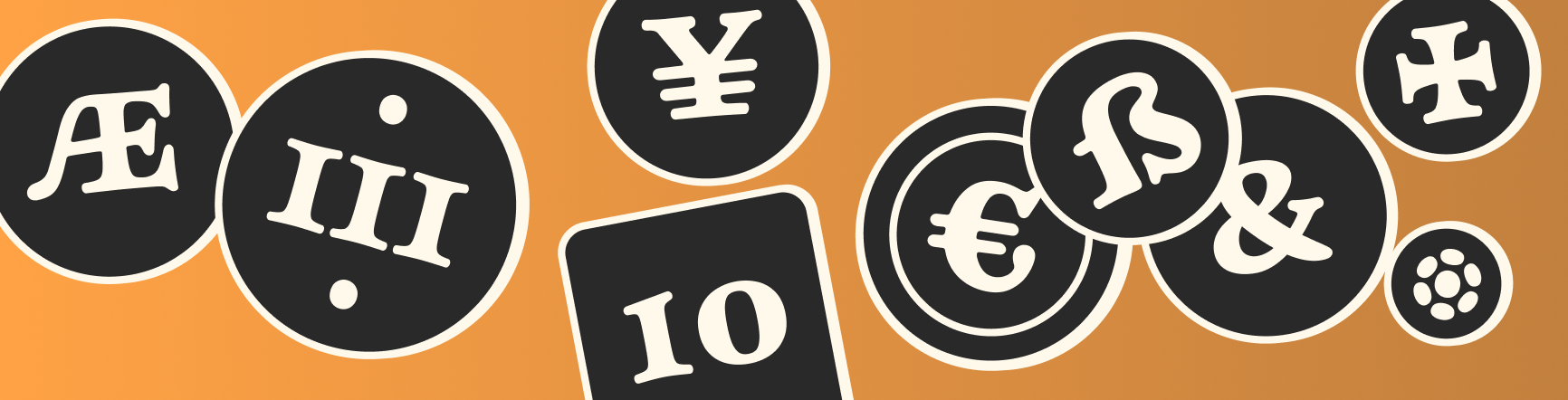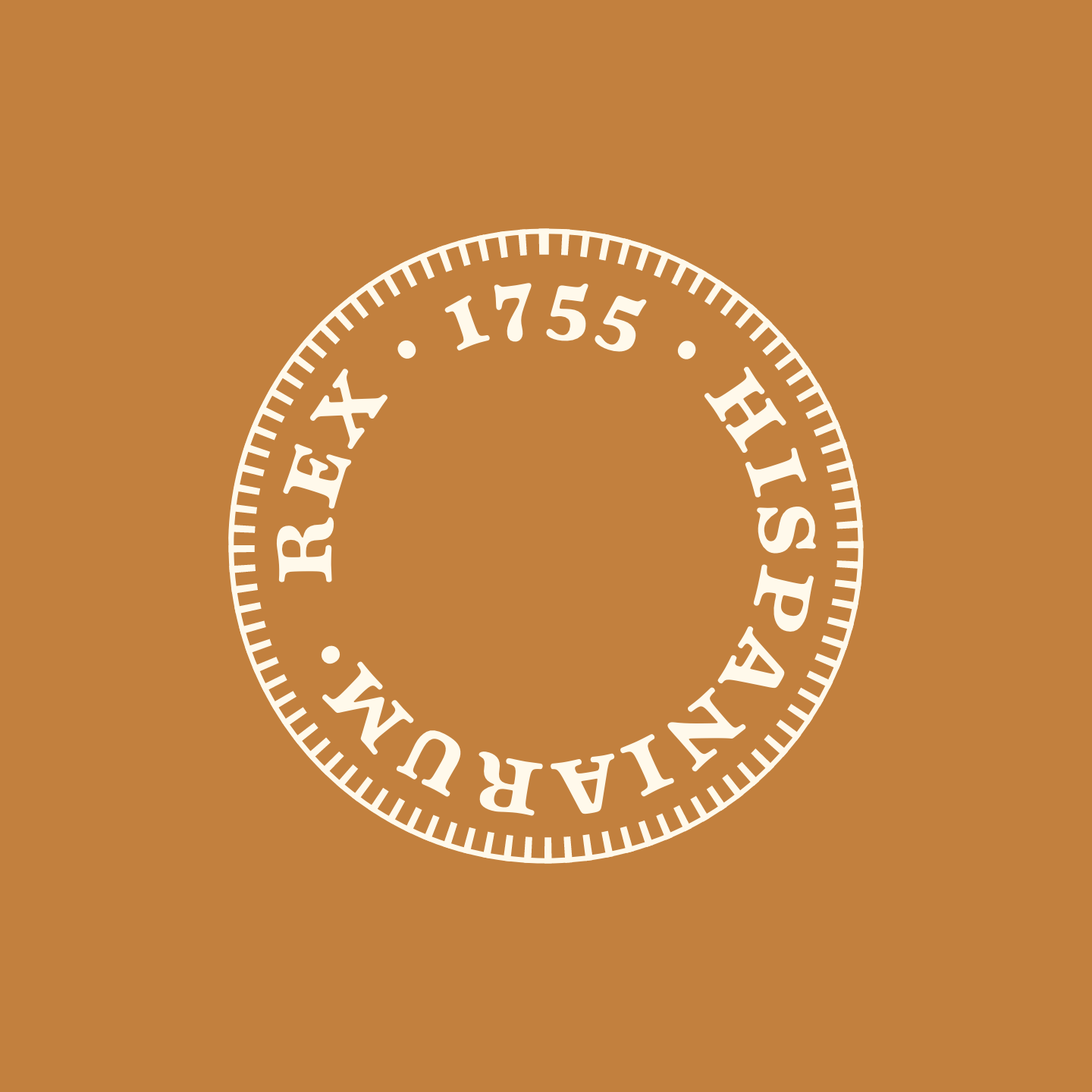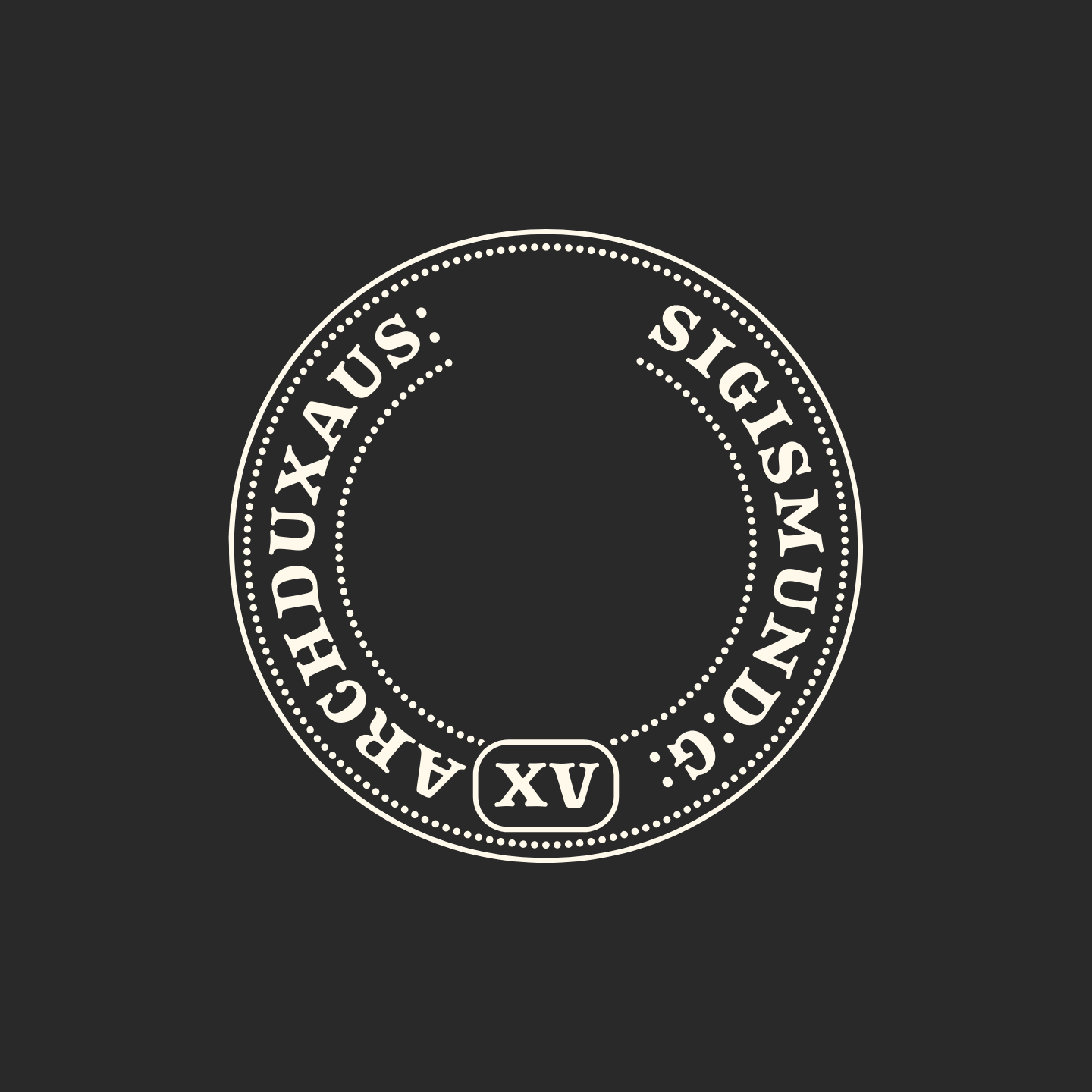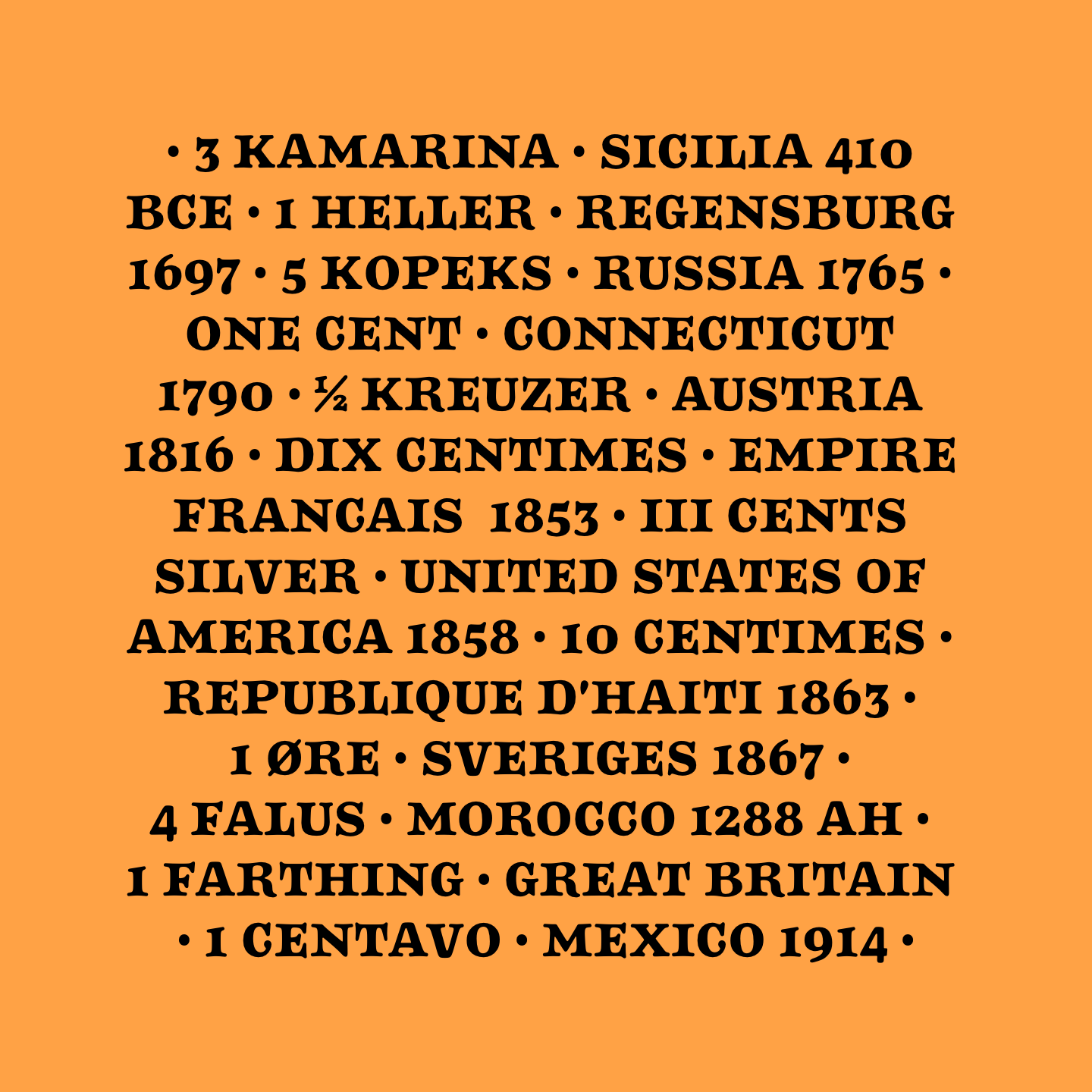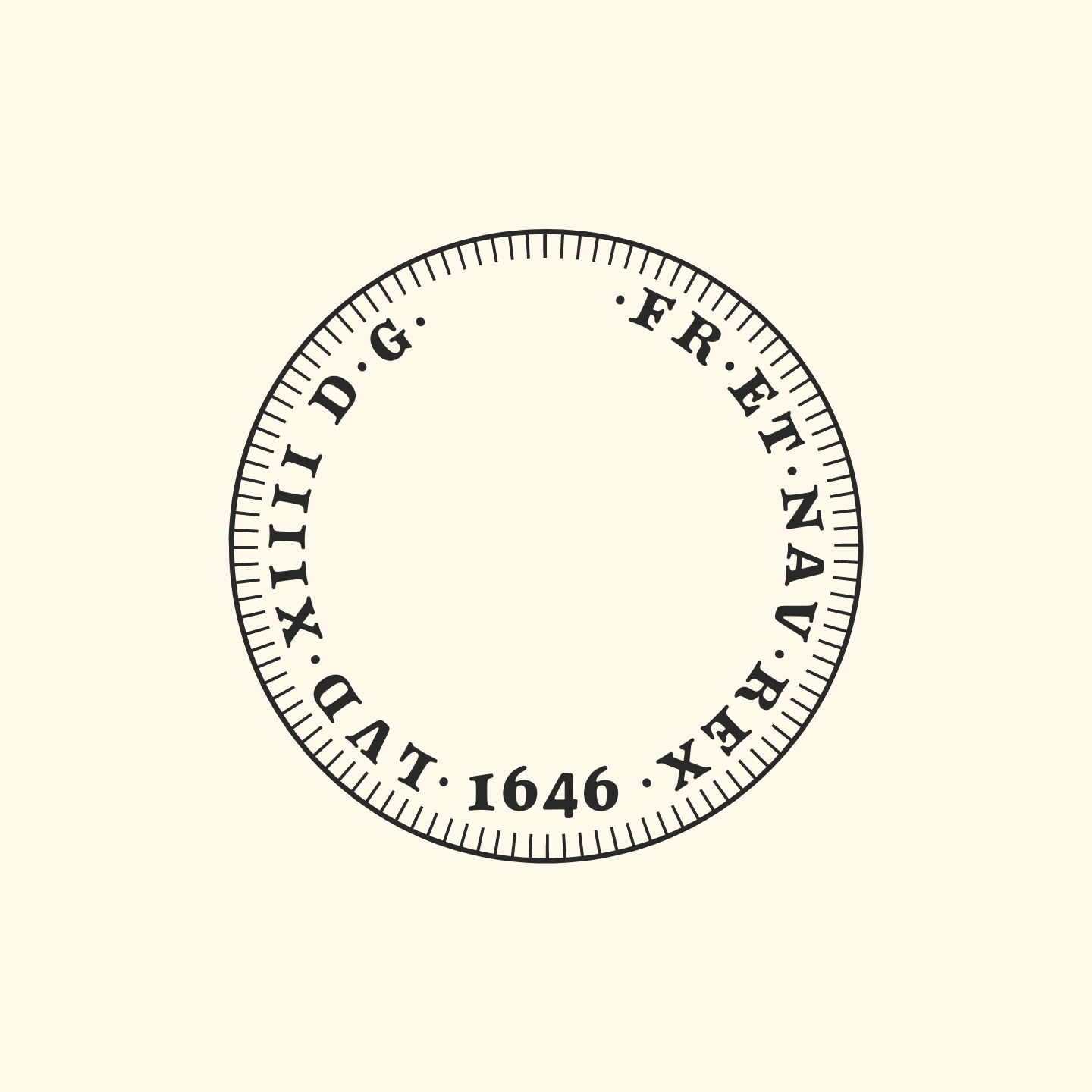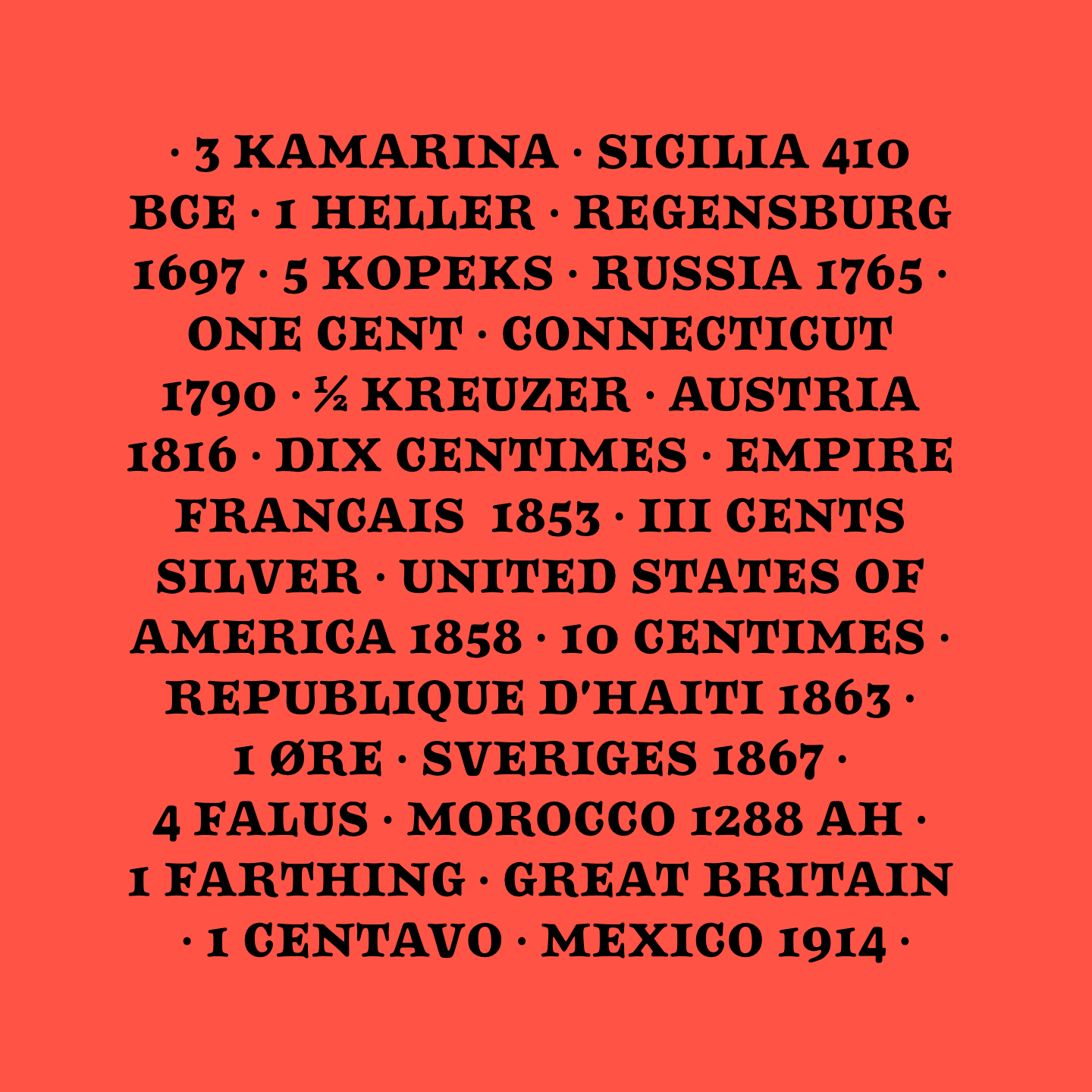
Numis
Unicase Serif Display Font
Numis was born out of a coin collecting hobby. A quick survey of coins from the late medieval to modern periods to today led to this unicase design. The rounded corners and smoothed edges are meant to evoke a the slightly worn letterfaces found on old coins; a process that tends to bolden the text before being rubbed away completely.